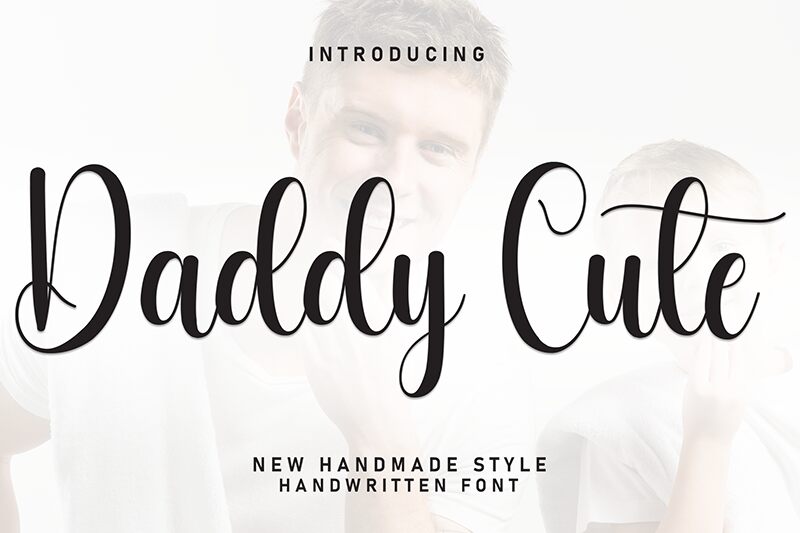
Daddy Cute
Daddy Cute font by Scratchones is a free calligraphy font that beautifully captures the romantic, decorative essence of modern script. It has an expressive and elegant style with a flowing structure, smoothly connecting characters in graceful and clear arrangements. The gentle inclinations balance the geometric look adding to its sleek appearance while still being eye-catching and special.
Daddy Cute can be used for everyday personal uses such as making greeting cards or printing T-shirt illustrations. Additionally, it’s ideal for wedding invitations, certificates, signatures on documents and letters or logos for restaurants and others. The best business implementations are package designs for various food-related products.